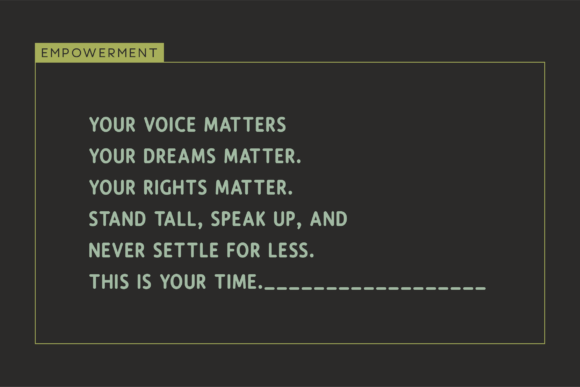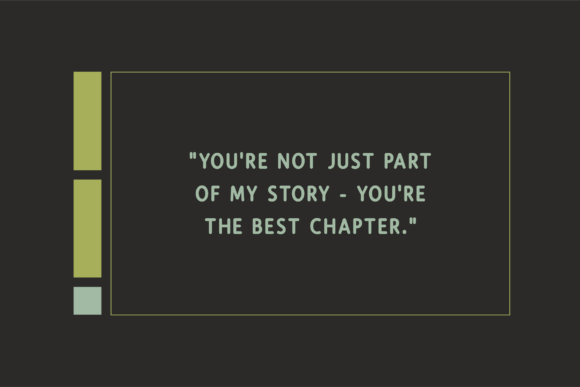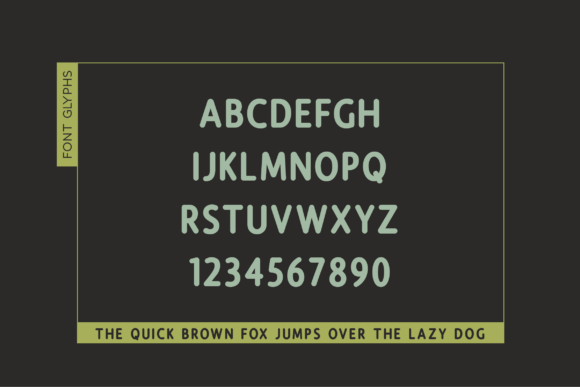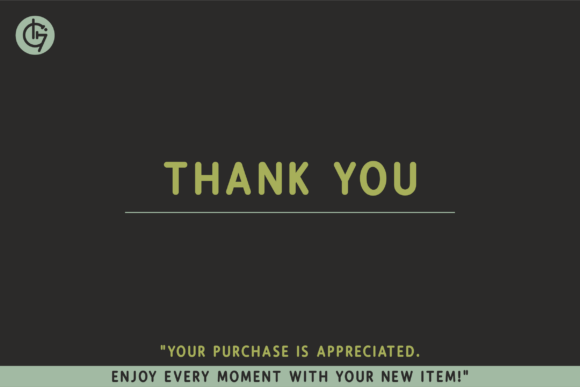
Introduction to Gomevalen Font
Have you ever been in the midst of a creative project, pouring your heart and soul into a design, only to feel like something is missing? That elusive spark that sets your work apart from the rest? For designers, this can be a frustrating yet familiar feeling. But what if you had a secret tool up your sleeve to elevate your designs and give them that extra special something?
Enter the Gomevalen Font – a game-changing, high-quality design resource that’s about to revolutionize the way you approach your creative projects. With its delightful, whimsical design and comprehensive character set, this font is the perfect addition to any designer’s toolkit.
Key Features of Gomevalen Font
- High-quality design resource ideal for creative projects, offering a unique and modern aesthetic.
- Features a transparent background, allowing for effortless layering and customization in graphic design software.
- Characterized by its clean and minimalist design, the Gomevalen Font is perfect for modern design projects requiring a touch of sophistication.
Honest Review: Gomevalen Font
As a designer, I’m always on the lookout for high-quality design resources to elevate my creative projects. Recently, I stumbled upon the Gomevalen Font, and I’m excited to share my thoughts on this versatile font.
- ✨ High-quality design: The Gomevalen Font boasts crisp, clean lines and a professional feel that’s perfect for a wide range of creative projects.
- ✨ Versatility: With a transparent background, this font can be easily layered over any image or background, giving you endless design possibilities.
While the Gomevalen Font is a solid addition to any designer’s toolkit, there are a few limitations to consider:
- ⚠️ Limited character set: The font’s character set is somewhat limited, which may not be ideal for projects requiring a wide range of special characters.
- ⚠️ Not suitable for small text: Due to its design, the Gomevalen Font may not be the best choice for small text sizes, as the letters can become difficult to read.
Overall, I’m impressed with the Gomevalen Font’s high-quality design and versatility. While it may have some limitations, it’s an excellent choice for designers working on creative projects that require a clean, professional look.
How to Use Gomevalen Font
The Gomevalen Font is a versatile, high-quality design resource ideal for various creative projects. With its transparent background, this font is perfect for adding a touch of elegance to your designs.
Getting the Most Out of Gomevalen Font
To get the most out of the Gomevalen Font, experiment with different font sizes, colors, and styles to find the perfect combination for your design. You can also use the font in conjunction with other design elements, such as images and graphics, to create a cohesive and visually appealing design.
The Gomevalen Font is ideal for various creative projects, including:
- Website design and development